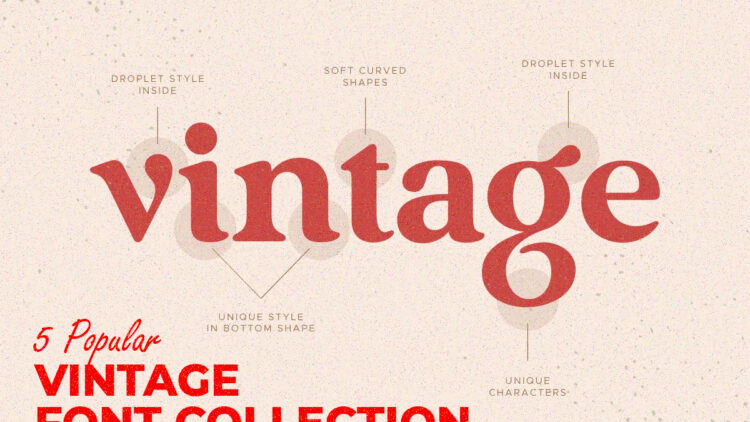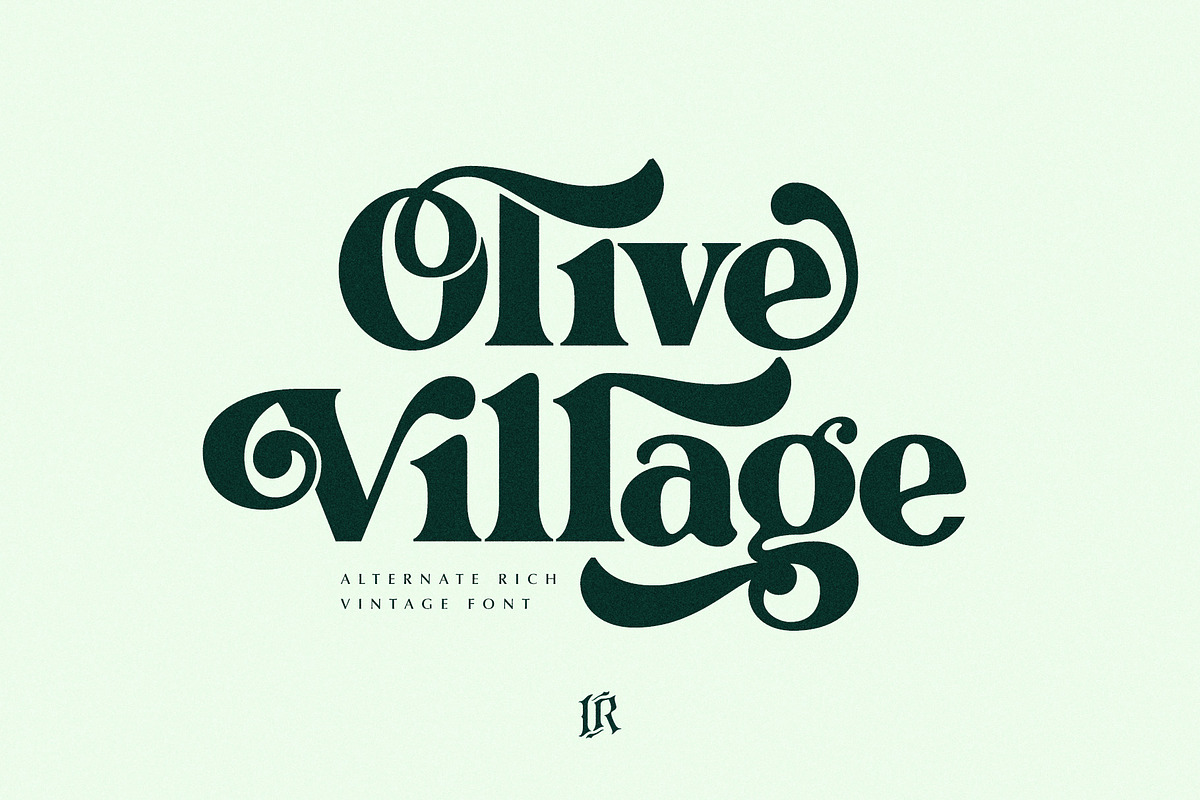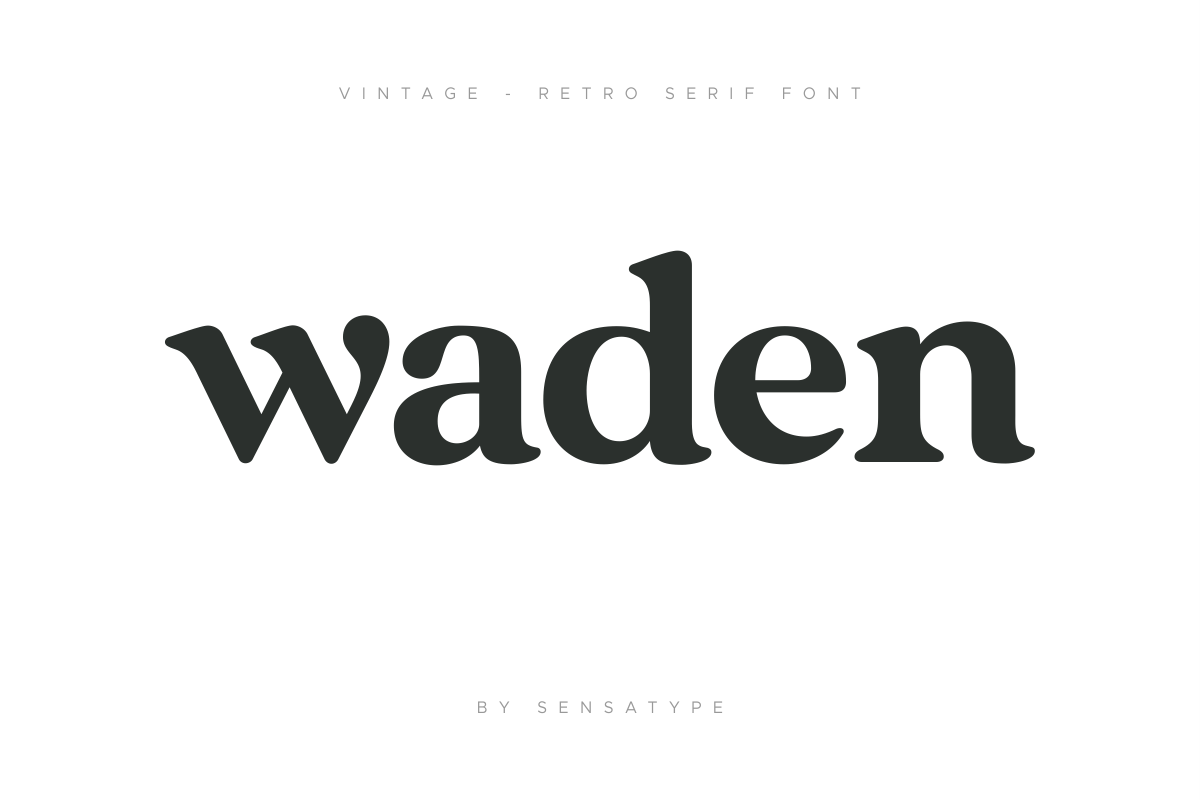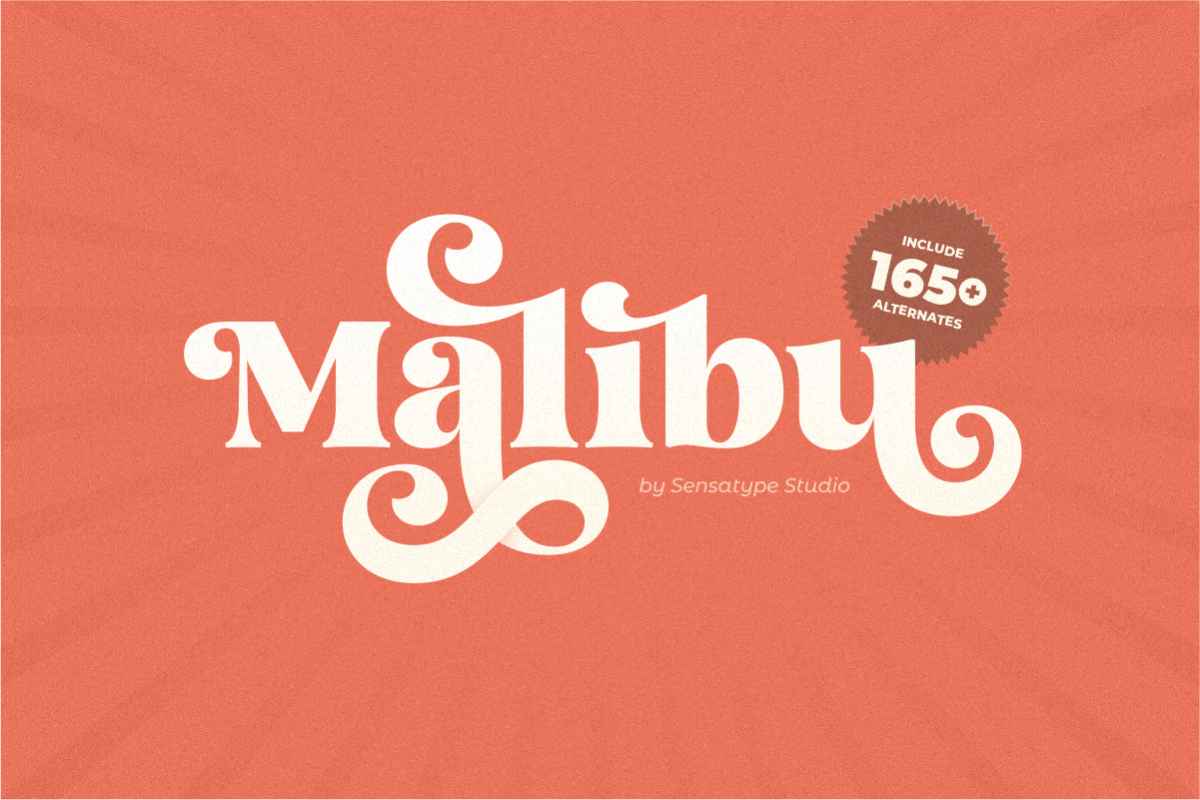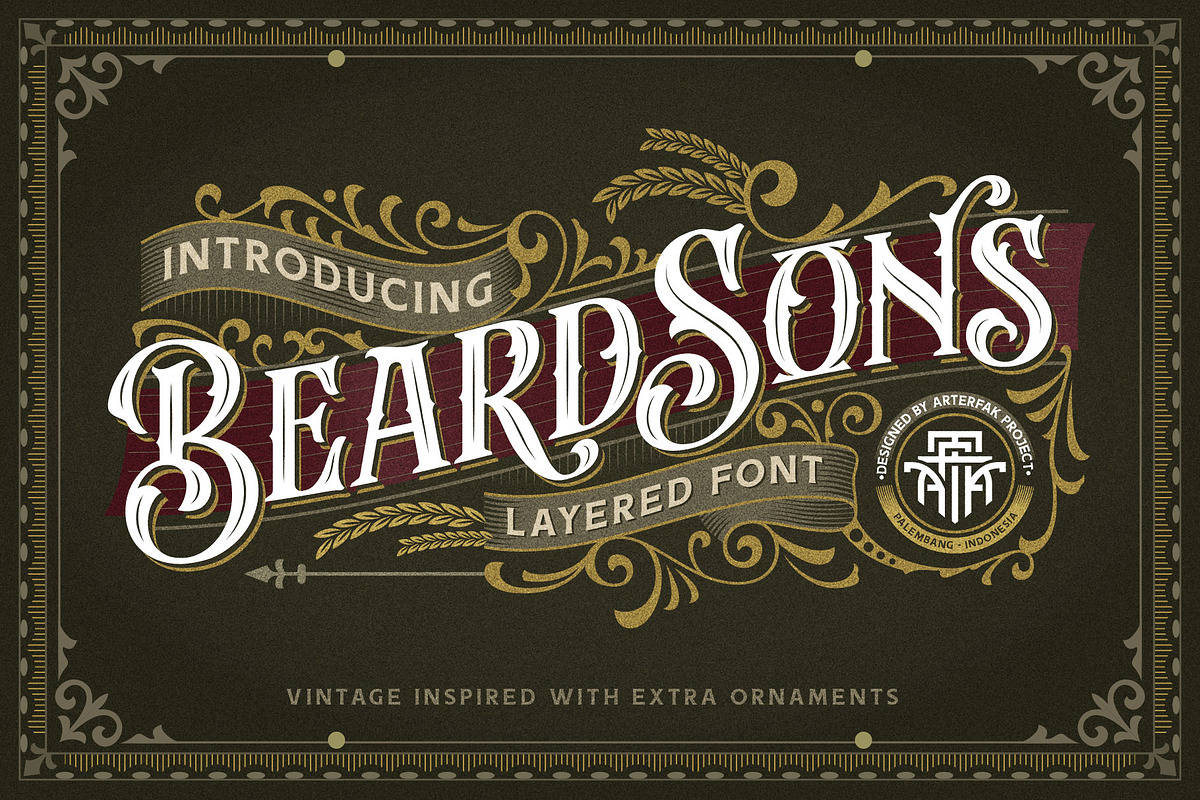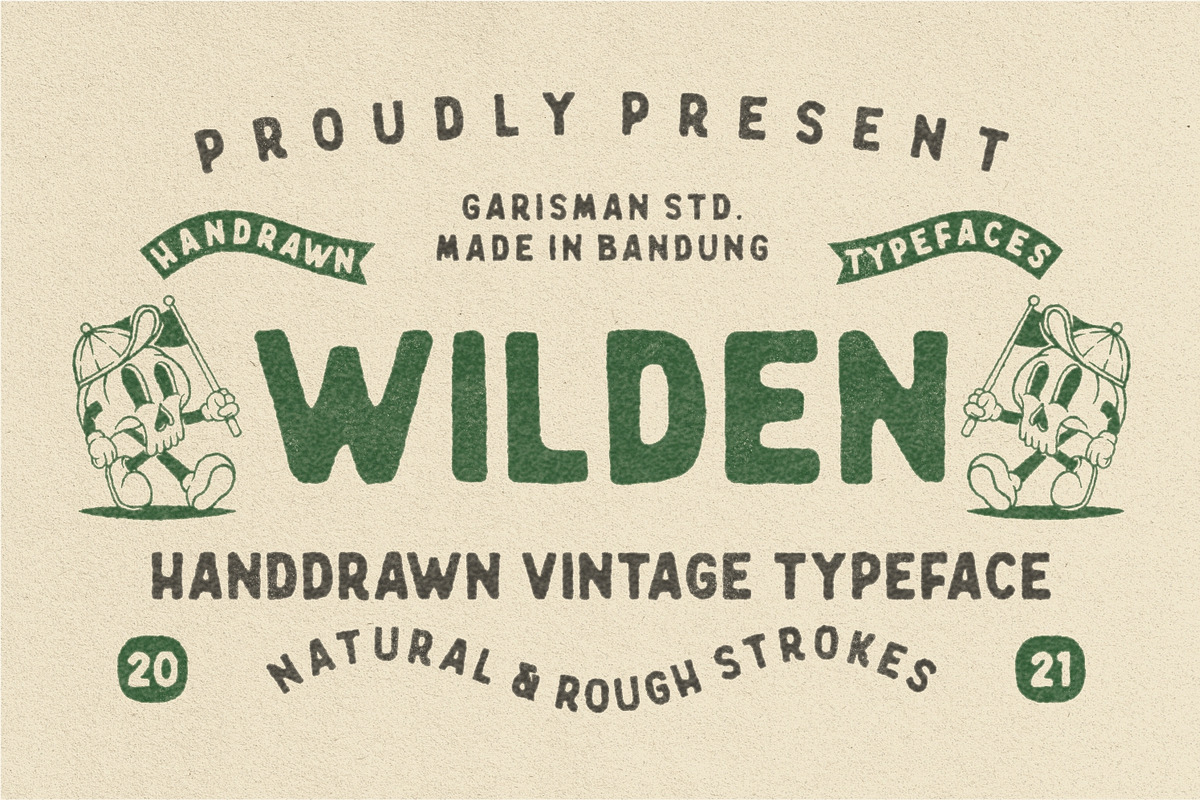
5 Popular vintage font collection
Top 5 Popular Vintage Fonts
The top 5 popular vintage fonts are collections of the most purchased vintage fonts on the web. Here in this post, you will get to know about the latest variety of vintage fonts created in the latest time. Vintage Font is a Popular Font That is Inspired by 70’s Design. It is Use For Commercial purposes.
1. Beardsons – Layered Font
Beardsons - Layered Font
2. Olive Village – Vintage Font
Olive Village - Vintage Font
Olive Village exudes the groovy charm of the 70s with a modern twist, making it perfect for vintage-inspired designs. This stylish font is versatile, suitable for both display and text sizes, and comes with a range of OpenType features, alternate glyphs, and ligatures for added customization. Available in both regular and italic versions, Olive Village is ideal for headlines, titles, branding, packaging, and editorial designs, seamlessly blending modern and vintage aesthetics. Accessing stylistic alternates is easy with software featuring a glyphs panel like Photoshop and Illustrator, while ligatures can be used without any special software requirements.
3. Vintage – Retro Serif Font
Vintage - Retro Serif Font
Vintage Retro Serif Font embodies a harmonious blend of classic elegance and retro charm. Its versatile serif design offers a touch of vintage sophistication, perfect for a wide array of creative projects. Whether you’re crafting branding materials, logos, wedding designs, social media posts, or product packaging, this font provides both legibility and aesthetic appeal. With its unique style and moderate contrast, Vintage Retro Serif Font lends itself effortlessly to diverse design needs, allowing you to create stunning visuals with ease.
4. Malibu Fancy Vintage Font
Malibu Fancy Vintage Font
Malibu Fancy Vintage Font offers a delightful blend of modern sophistication and vintage charm. With its playful yet elegant design, this serif font family boasts over 165 alternates, allowing you to effortlessly create unique and beautiful shapes. Whether you’re working on branding projects, logos, wedding designs, or social media posts, Malibu Font adds a touch of flair and personality. Its moderate contrast and high legibility make it suitable for a wide range of applications, including advertisements, product packaging, labels, invitations, and more. With Malibu Fancy Vintage Font, your creative projects are sure to stand out with style and grace.
5. Wilden – Handdrawn Vintage Typeface
Wilden handdrawn vintage font